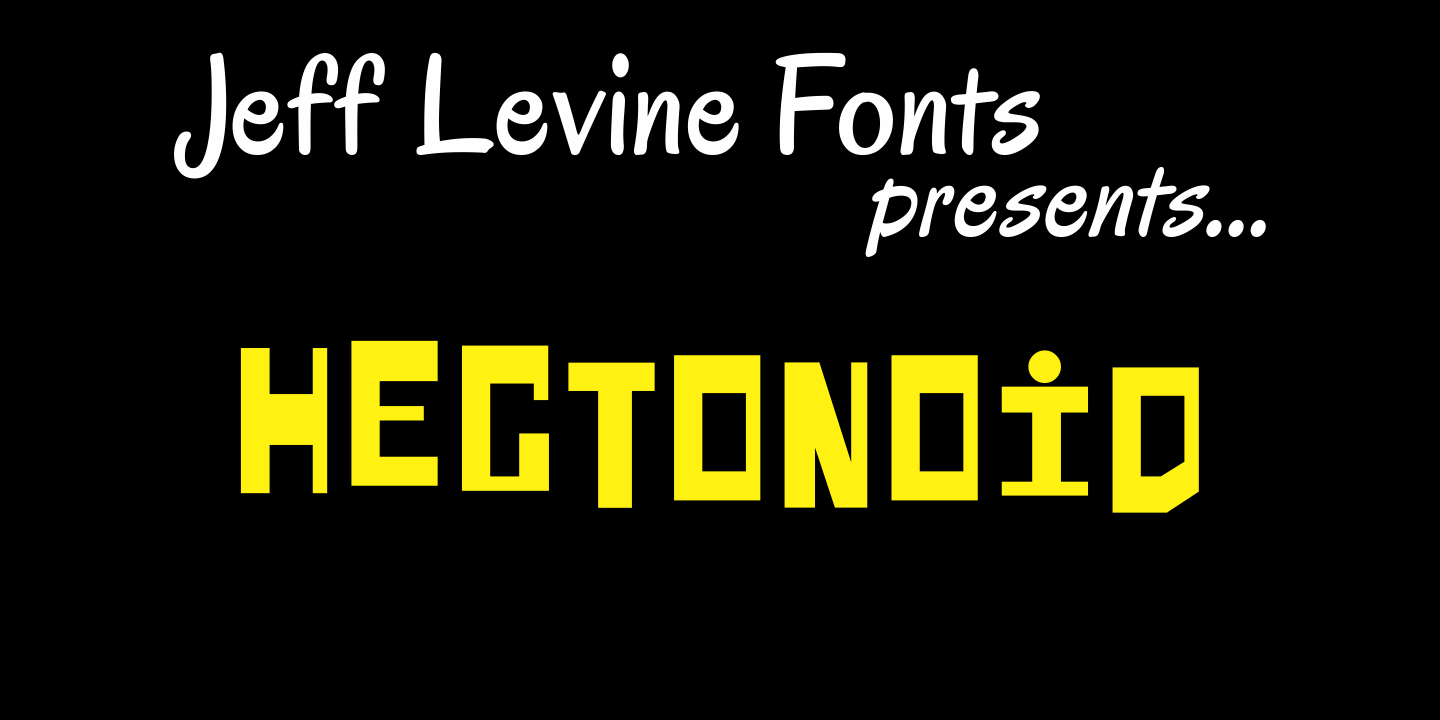
Hectonoid
Hectonoid JNL is a more radical version of Oblogram JNL, with a jumbled alphabet and heavier stroke weights.
Both fonts are derived from Jeff Levine's Yorso Square JNL.